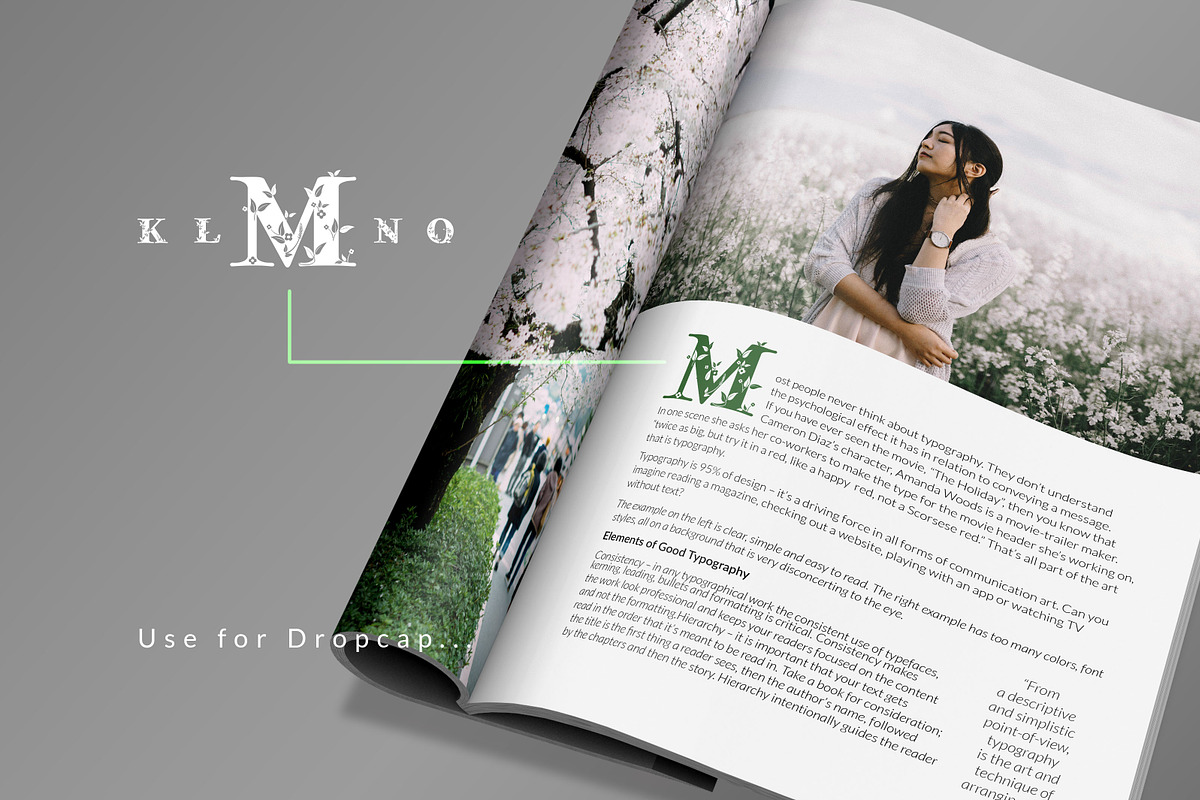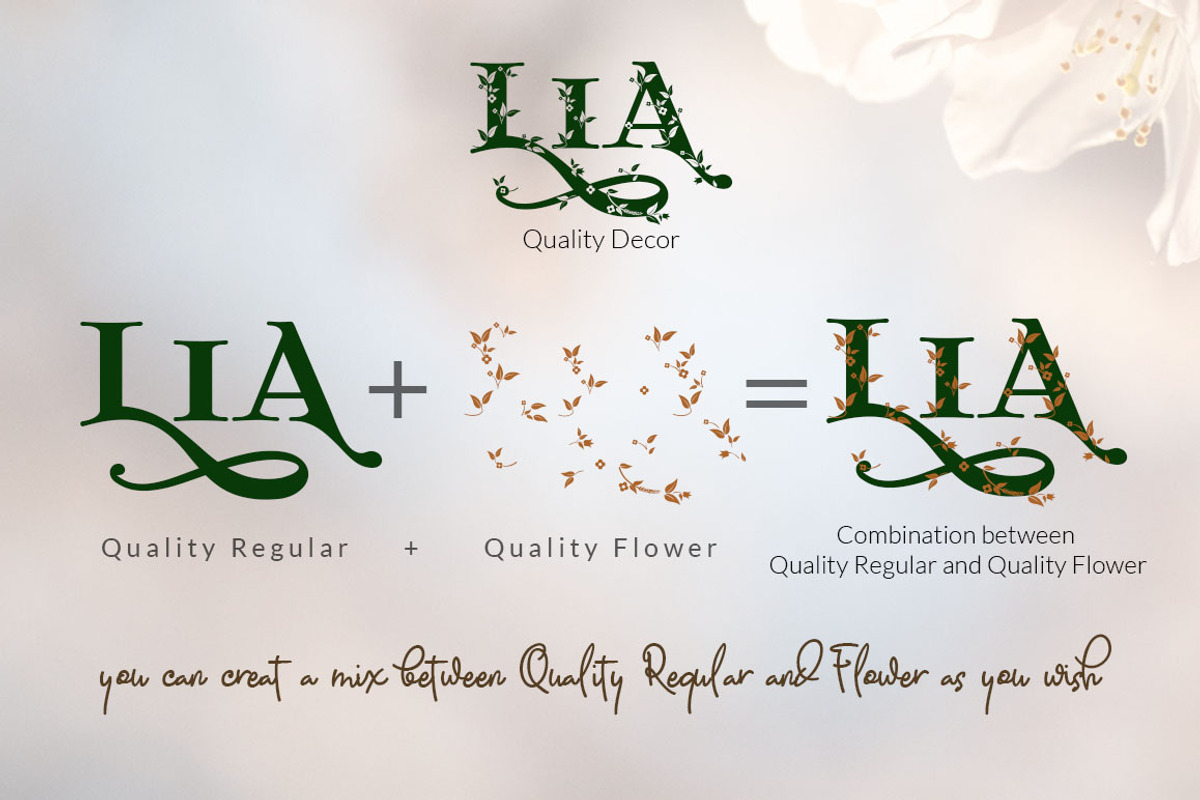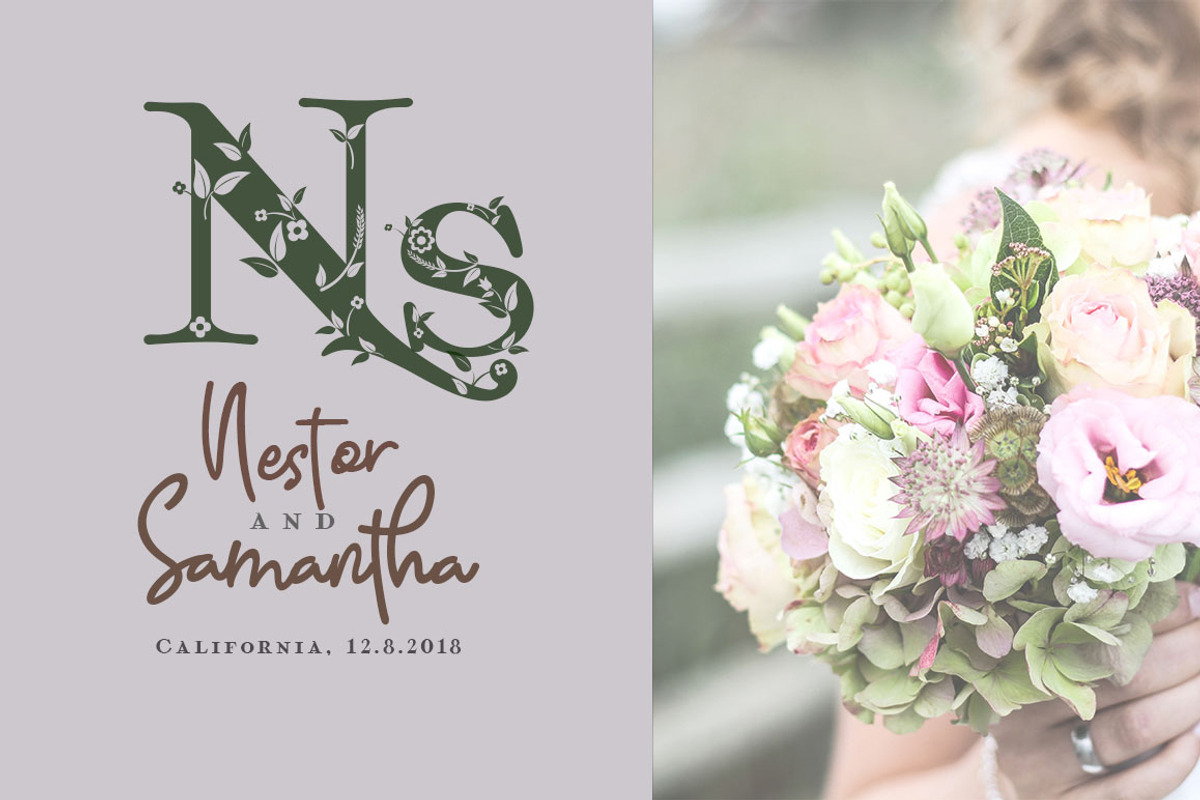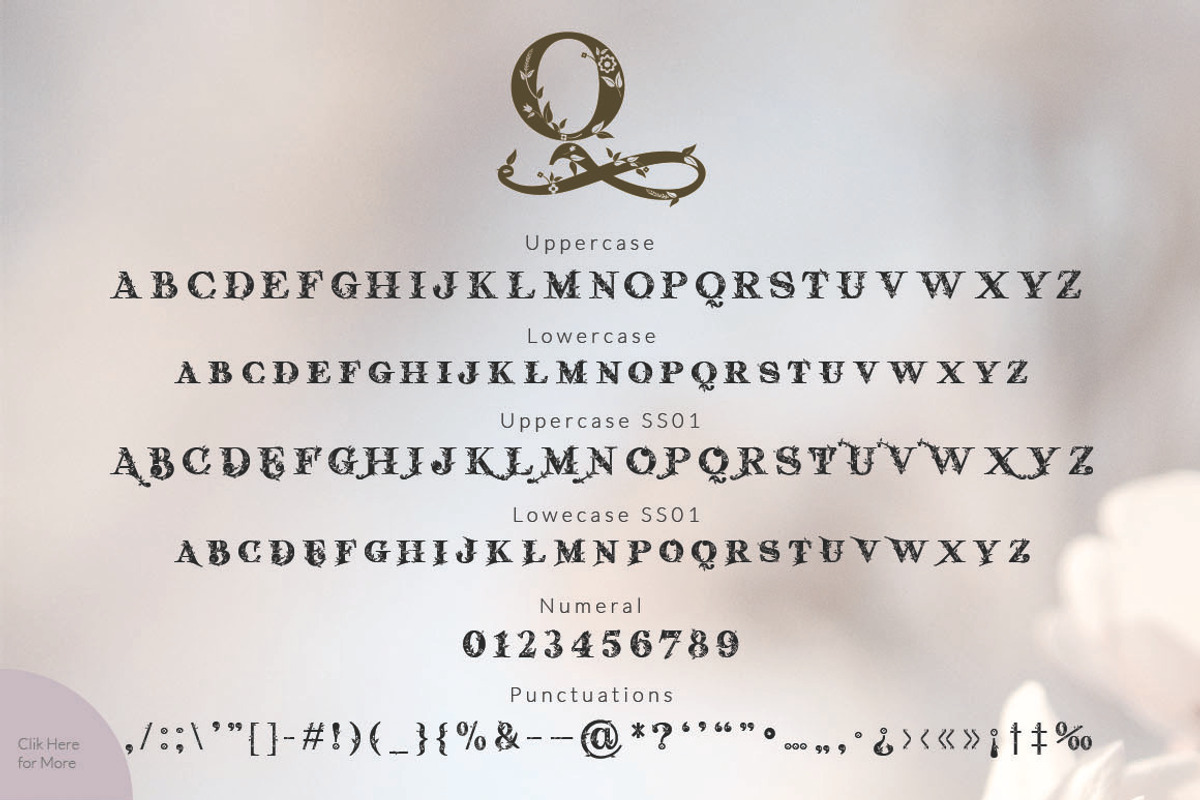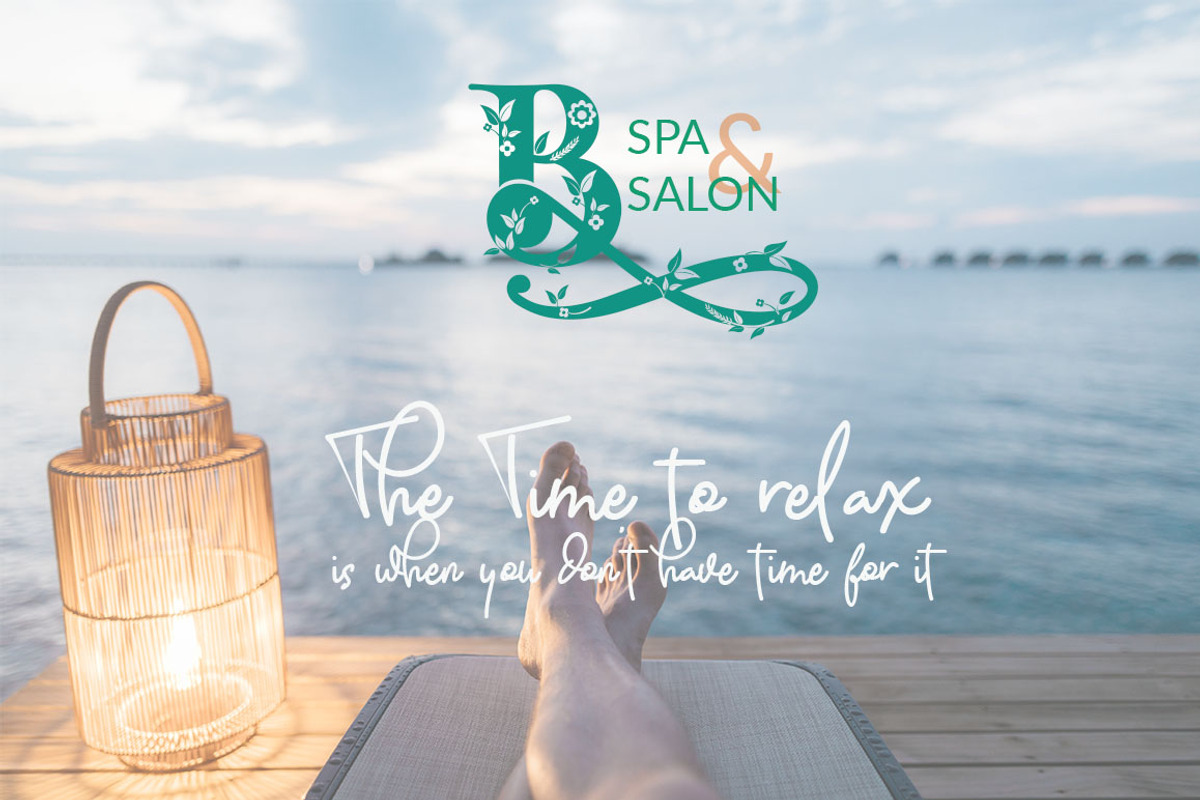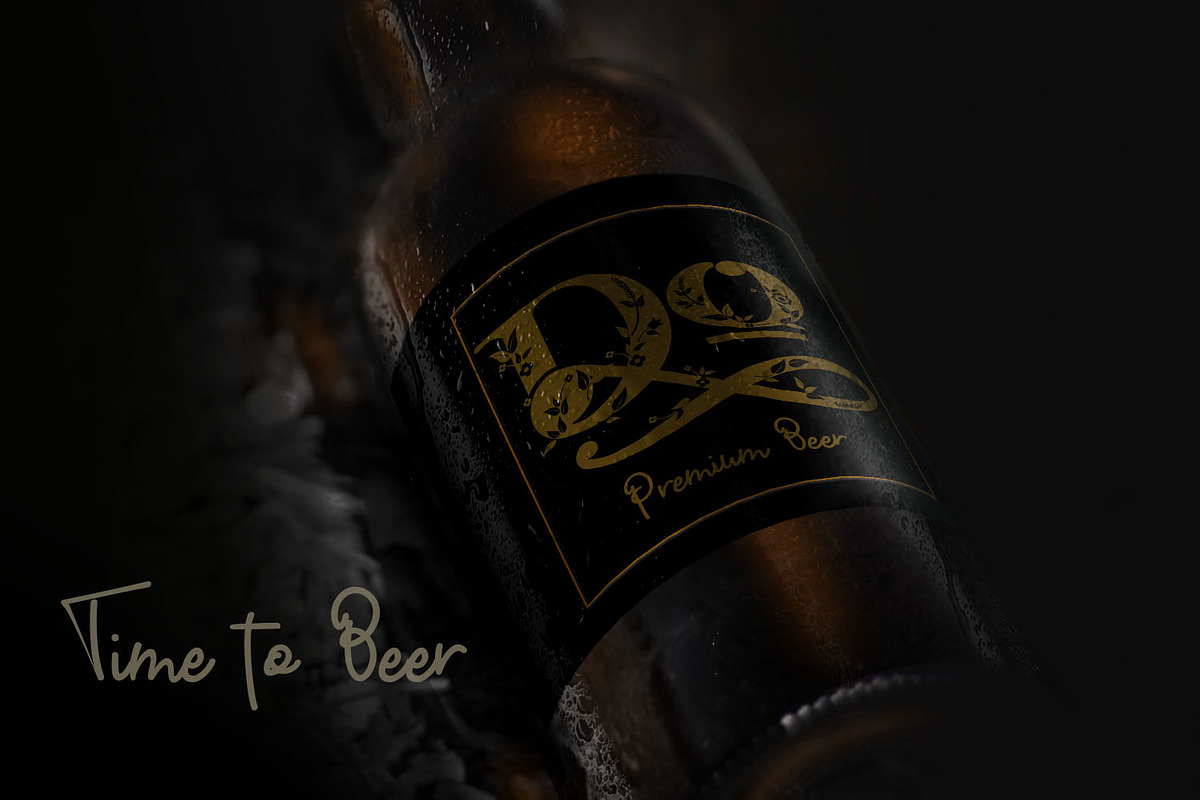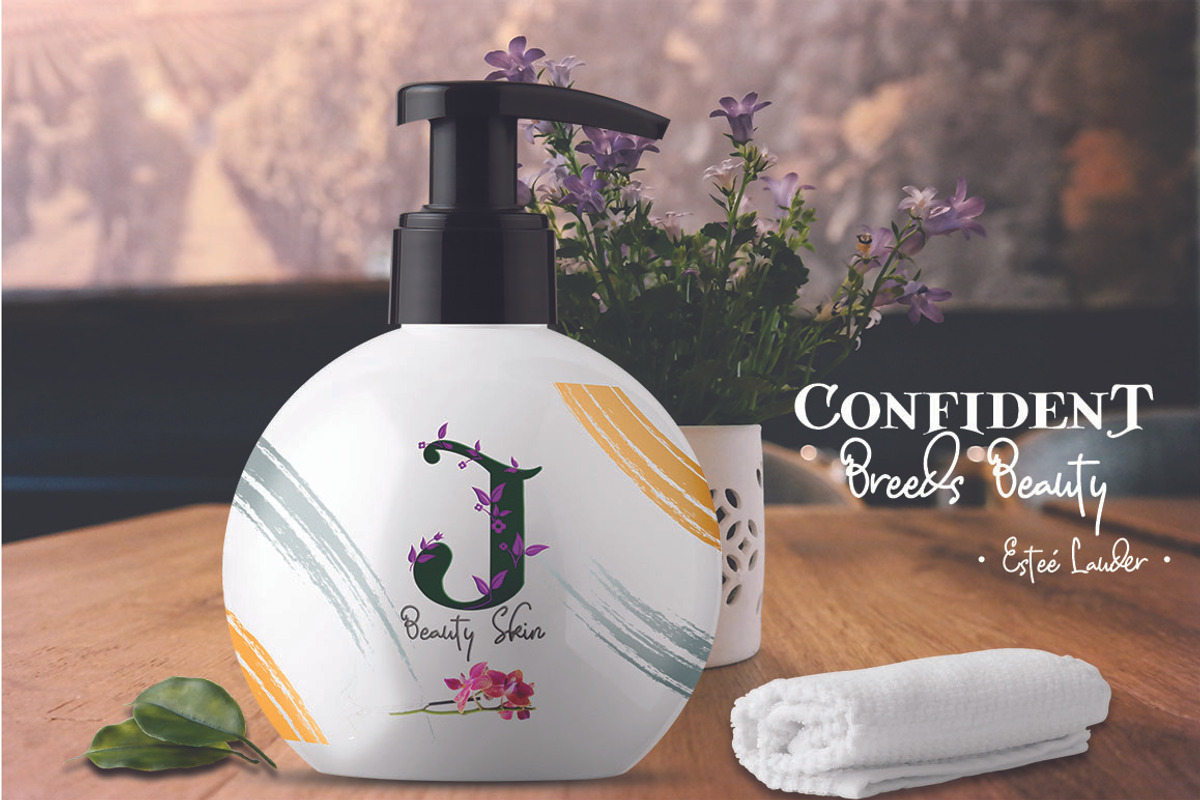
Quality Decorative Font Duo
Quality Decorative is Font Duo coming with Serif Decorative and Script Signature. Serif is the first letter I learned from my late Father when I was aged 11 year old (22 years ago), so... I'm very very happy to create this font for you all.. :-) Quality Signature is Script font in this package for font Duo
Quality Decorative come with 3 Styles in Serif (Decor, Regular and Flower) + Script Signature.
Quality Decorative is very suitable for anything your design product, like as Logos, Wedding, Business Cards, Magazine, Gift Cards, Cloth, T-Shirt, Menu of Cafe and Restaurant, Brands, CD and DVD Cover, Wall, Frame, and typing in your PC. I think... This Font you can use and Apply for anything you want.
Uppercase and Lowercase
Uppercase Alternate Character in ss01 and more
Lowercase Alternate Character in ss01 and more
Punctuation, Symbols, Basic Latin and Extended